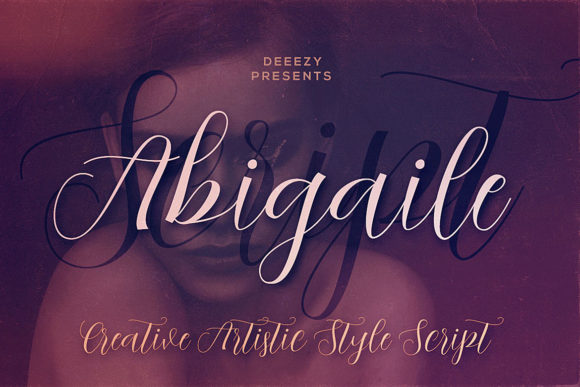
Journey to elegance with Abigaile Script Font, a handwritten masterpiece by JumboDesign. Its delicate lines dance across the page, captivating hearts and adding a touch of grace to any design. Whether you seek a font for branding, wedding invitations, or social media posts, Abigaile is your perfect companion.
Indulge in the Abigaile experience, where every letter flows with charm and sophistication. Its thin lines whisper secrets of romance, while its dancing baseline adds a touch of whimsy to your creations. Let Abigaile's beauty elevate your designs, transforming them into works of art that leave a lasting impression.
With Abigaile Script Font, you'll discover a world of elegance and creativity. Its versatility knows no bounds, adapting seamlessly to a wide range of projects. From elegant logos that exude professionalism to playful social media posts that captivate audiences, Abigaile is the font that brings your vision to life.
Embrace the allure of Abigaile Script Font, a font that speaks volumes without uttering a single word. Its exquisite curves and enchanting flow create a visual symphony that captivates and inspires. Let Abigaile be your muse, leading you to design masterpieces that resonate with emotion and leave an unforgettable mark.